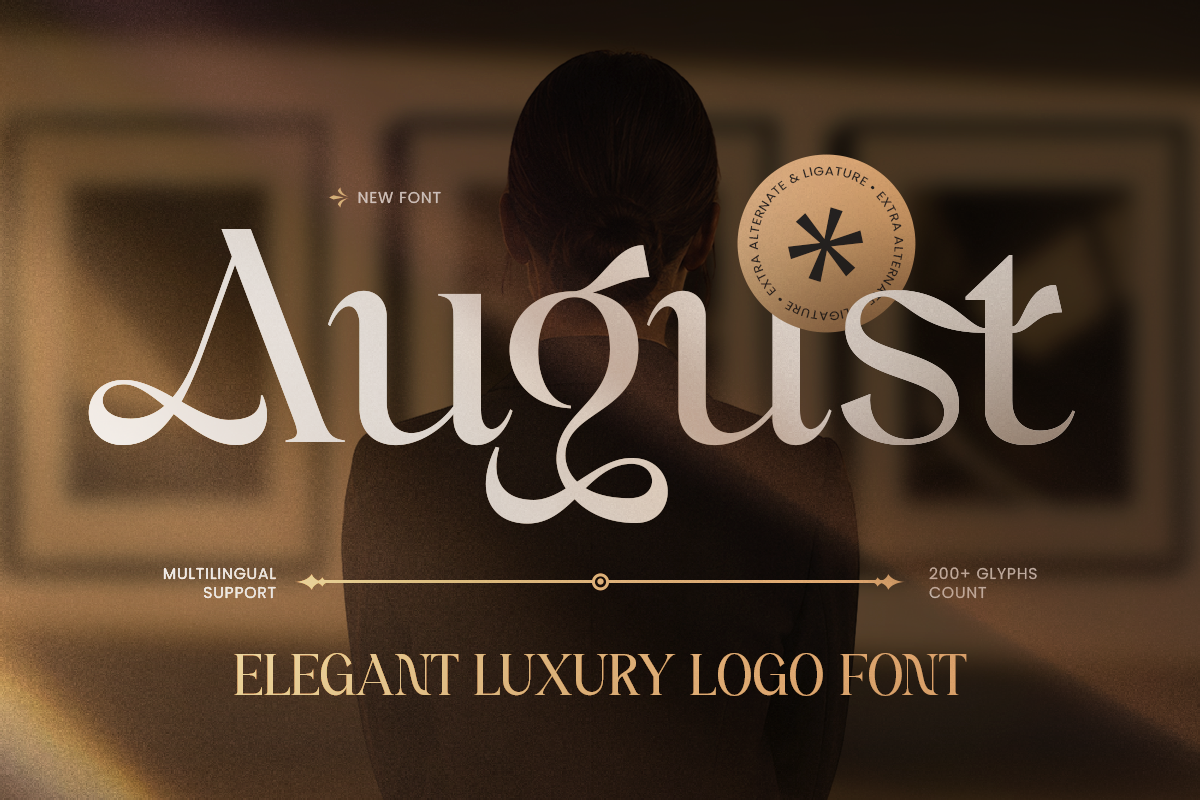
August
-Elegant Luxury FontAugust – Elegant Luxury Font
August is an elegant luxury font crafted to bring sophistication, refinement, and timeless beauty to premium design projects. Its graceful letterforms and stylish details create a polished high-end character, making it an excellent choice for designers seeking an elegant luxury typeface with a distinctive visual presence.
Perfect for luxury branding, sophisticated logos, fashion labels, beauty products, perfume packaging, wedding stationery, magazine covers, and editorial layouts, August adds an exclusive touch to every composition. Its refined appearance also works beautifully for posters, headlines, signage, social media graphics, advertising, and premium product presentations.
As an elegant luxury font, August is especially suited for fashion, cosmetics, jewelry, hospitality, wedding, lifestyle, and upscale retail branding. Its balance of modern elegance and timeless character helps create memorable brand identities across packaging, print, web, and digital design.
August – Elegant Luxury Features
Elegant letterforms with a sophisticated luxury aesthetic
Refined details for premium and high-end visual identities
Ideal for luxury logos, branding, fashion, and editorial design
Perfect for beauty, perfume, jewelry, and wedding projects
OpenType features for creative typographic flexibility
Great for packaging, posters, headlines, and social media
Suitable for professional digital and print projects
Elevate your visual identity with August – an elegant luxury font crafted for timeless, premium design. ✨